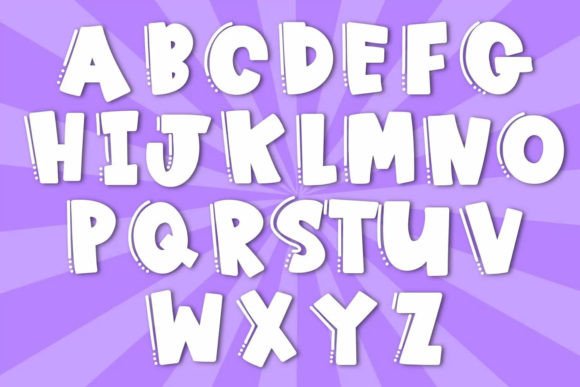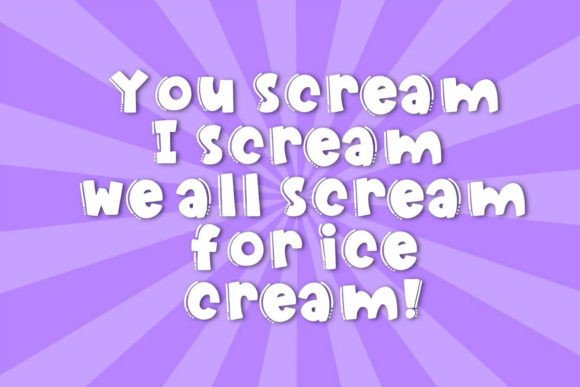
Bellow Font: The Ultimate Choice for Bold and Blocky Designs
Are you tired of using the same old fonts for your designs? Look no further than Bellow Font, a loud and blocky handwritten display font that’s perfect for a variety of projects. Whether you’re working on a decal, notebook, design, or t-shirt, Bellow is sure to make a statement. In this article, we’ll take a closer look at Bellow Font and explore its features, benefits, and uses.
What is Bellow Font?
Bellow Font is a unique and eye-catching handwritten display font that’s designed to add a touch of personality to your designs. Its bold and blocky letters make it perfect for creating attention-grabbing headlines, titles, and text. The font is carefully crafted to be highly legible, even at large sizes, making it ideal for use on a wide range of materials, from signage and decals to t-shirts and notebooks.
Features of Bellow Font
So, what sets Bellow Font apart from other fonts? Here are some of its key features:
- Bold and blocky letters: Bellow Font features thick, chunky letters that are sure to grab attention.
- Handwritten style: Despite its bold and blocky appearance, Bellow Font has a friendly, handwritten feel that’s perfect for adding a personal touch to your designs.
- Highly legible: The font is carefully designed to be easy to read, even at large sizes.
- Versatile: Bellow Font can be used on a wide range of materials, from paper and fabric to metal and plastic.
Benefits of Using Bellow Font
So, why should you choose Bellow Font for your next project? Here are some of the benefits of using this amazing font:
- Adds personality to your designs: Bellow Font is a great way to add a touch of personality and whimsy to your designs.
- Grabs attention: The bold and blocky letters of Bellow Font are sure to grab attention and make your designs stand out.
- Compatible with a wide range of materials: Whether you’re working on a digital project or a physical one, Bellow Font can be used on a wide range of materials.
Uses for Bellow Font
So, what can you use Bellow Font for? The possibilities are endless! Here are some ideas to get you started:
- Decals and stickers: Bellow Font is perfect for creating eye-catching decals and stickers for laptops, water bottles, and more.
- Notebooks and journals: Add a touch of personality to your notebooks and journals with Bellow Font.
- T-shirts and apparel: Bellow Font is a great choice for designing t-shirts, hoodies, and other apparel.
- Signage and displays: The bold and blocky letters of Bellow Font make it perfect for use on signage and displays.
In conclusion, Bellow Font is a loud and blocky handwritten display font that’s perfect for a variety of projects. Its bold and blocky letters, handwritten style, and high legibility make it a great choice for designers and crafters who want to add a touch of personality to their designs. Whether you’re working on a decal, notebook, design, or t-shirt, Bellow Font is sure to make a statement. So why not give it a try and see what amazing designs you can create?